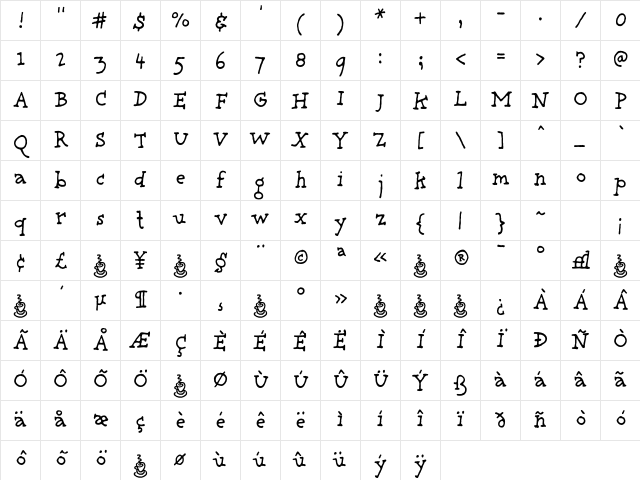
Providence Roman Free Font
Providence Roman
Design Context for Providence
Providence is a composed and adaptable typeface that performs quietly and consistently across a wide range of design contexts.